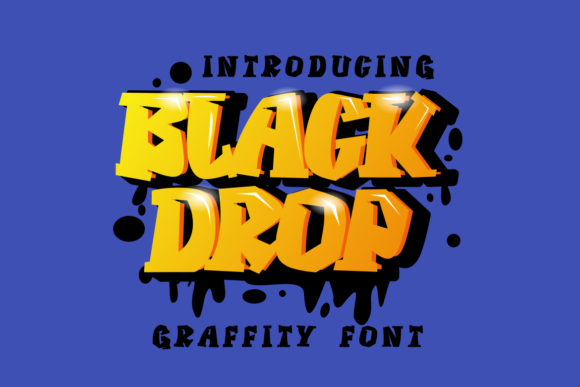
The Ultimate Guide to Black Drop Font: A Graffiti-Style Display Font
I’ll never forget the time I was working on a project for a client who wanted a bold, eye-catching font to brand their new clothing line. I scoured the internet for hours, but nothing seemed quite right. That was until I stumbled upon Black Drop Font, a cool, graffiti-styled display font that perfectly captured the edgy vibe my client was looking for.
As a designer, I’ve learned that the right font can make all the difference in a project. And with Black Drop Font, I’ve found a versatile and stylish option that’s perfect for a wide range of designs, from t-shirts and sportswear to logos and advertisements.
An Honest Review of Black Drop Font
- ✨ Unique graffiti-style design that’s sure to turn heads
- ✅ Highly legible, even at larger font sizes
- ✅ Works well for both digital and print designs
- ✨ Great for creating bold, eye-catching graphics
While Black Drop Font is an excellent choice for many designs, there are a few things to keep in mind. For example, ⚠️ it may not be the best choice for body text or smaller font sizes, as it can be a bit too bold. Additionally, 🤔 some users may find that the font’s graffiti-style design doesn’t quite fit with their brand’s tone or aesthetic.
One of the best things about Black Drop Font is its support for OpenType features and glyphs. These features allow you to customize the font to fit your design needs, from stylistic alternates to swashes and more.
The Backstory Behind Black Drop Font
Black Drop Font was designed by a team of creatives who wanted to capture the energy and excitement of urban street art. Inspired by the graffiti tags and murals that dot city walls, they set out to create a font that would bring that same edgy vibe to designs.
Q: What type of designs is Black Drop Font best suited for?
A: Black Drop Font is perfect for designs that require a bold, eye-catching font, such as t-shirts, sportswear, logos, and advertisements.
Q: Is Black Drop Font available in different weights or styles?
A: Currently, Black Drop Font is available in a single weight, but the design team is working on adding more weights and styles in the future.